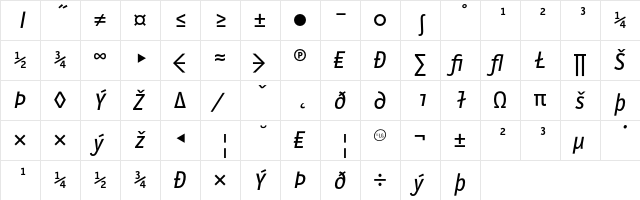
LetterGothicMono ItalicExpert Font Preview
LetterGothicMono ItalicExpert
Design Context for LetterGothicMono Typeface
LetterGothicMono brings the precise, column-aligned rhythm of monospaced typography to designs that value technical clarity and systematic order. The dynamic lean of this cut emphasises speed and emphasis in any layout.
A natural fit for code editors, technical documentation, developer-focused branding, and terminal-inspired UI.
Pro Tip: Pair LetterGothicMono with a proportional sans for UI contexts where code-style labels and regular body copy need to coexist.